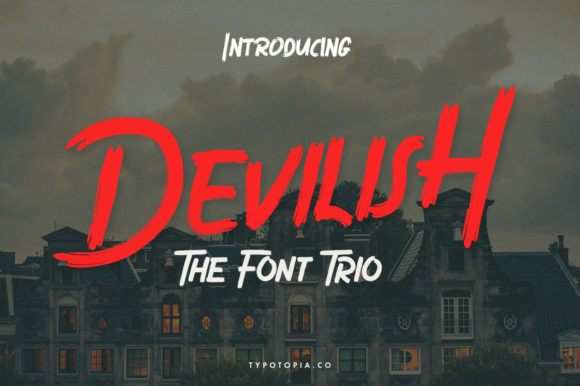
**Unleash Your Fiendishly Creative Genius with Devilish Trio Font**
Embark on a typographic adventure that will ignite your imagination and leave your designs dripping with style! Introducing the Devilish Trio font, a spine-tingling display font meticulously crafted by the masterminds at Typotopia. Its menacingly bold strokes and blood-red hue will cast a spell on your audience, captivating their senses and leaving them begging for more.
Devilish is not just another font; it's a portal to a realm of boundless creativity. Its tantalizingly sharp edges and tantalizingly menacing curves will empower you to evoke emotions that run the gamut from spine-chilling horror to thrilling excitement. Whether you're conjuring up invitations for a Halloween soirée, crafting posters for a macabre movie premiere, or designing packaging for a tantalizingly eerie product, Devilish will be your loyal typographic companion, adding an unforgettable touch of the supernatural to all your endeavors.
**Dare to Dance with Darkness**
Unleash your inner rebel and embrace the seductive allure of the dark side with Devilish. This font is a fearless statement, a defiant challenge to the ordinary, and a captivating invitation to explore the depths of your imagination. With Devilish at your fingertips, you'll possess the power to create designs that resonate with a raw, untamed energy, leaving an indelible mark on your audience's minds.
**Ignite Your Passions, Unleash Your Creativity**
Let Devilish become your muse, inspiring you to conjure up designs that are as unique and captivating as you are. Its versatility knows no bounds, making it the perfect choice for everything from spine-chilling book covers to tantalizingly eerie posters. Let your imagination run wild as you experiment with different sizes, colors, and effects, discovering the endless possibilities that Devilish holds.
**Embrace the Dark, Unleash Your Inner Devil**
With Devilish Trio font, you'll discover a font that's as addictive as it is alluring. Its bold, dramatic strokes will captivate your audience, while its versatility empowers you to create designs that push the boundaries of creativity.